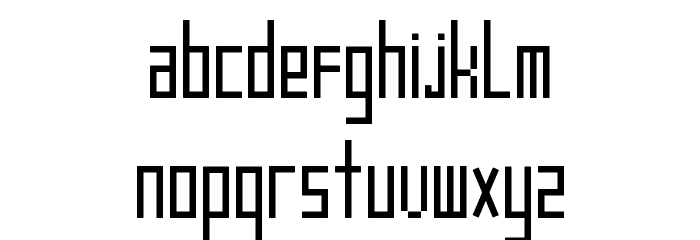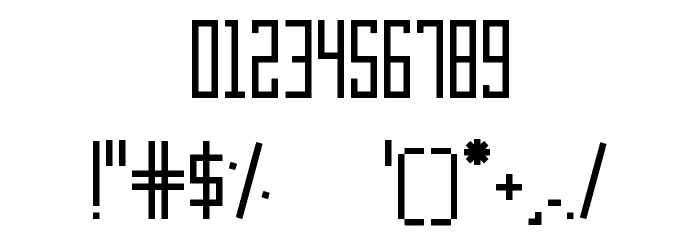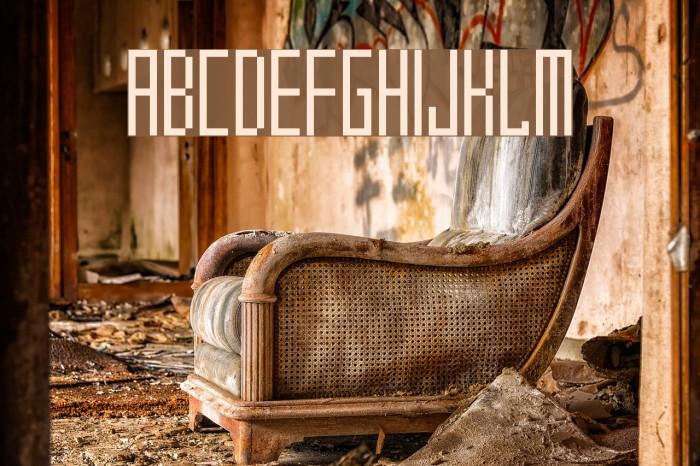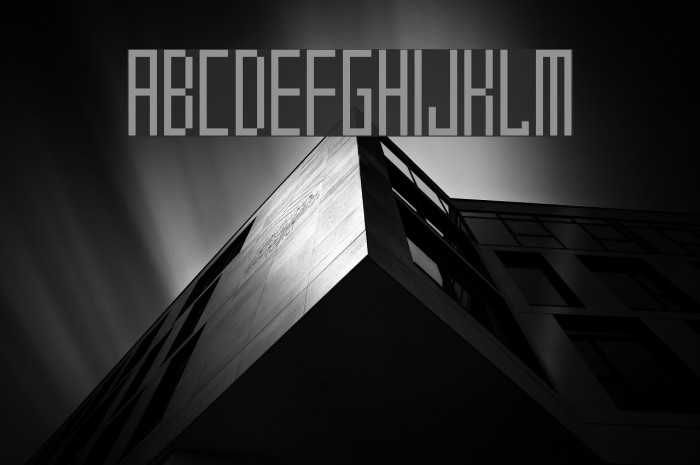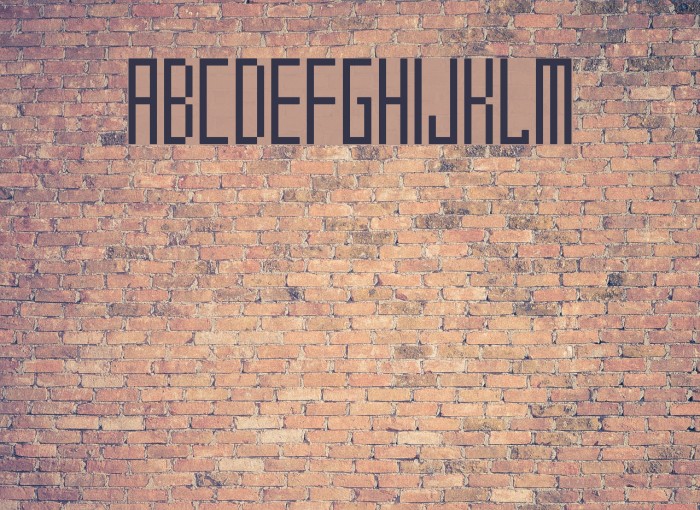
Frankstern Font
This font features a geometric and structured design, characterized by its tall, narrow letters and consistent line thickness. The uppercase letters are particularly striking, with a modern and futuristic appearance. The lowercase letters maintain the same geometric style, creating a cohesive look across the alphabet. Numbers and special characters are designed with the same attention to detail, ensuring readability and uniformity. The font's clean lines and sharp angles make it suitable for digital and print media, where a contemporary and tech-inspired aesthetic is desired.
A geometric, modern font with tall, narrow letters and consistent line thickness.
- Proposed Projects: Ideal for technology branding, digital interfaces, modern posters, and futuristic design projects.
- Use Case: Headlines, Logos, Digital interfaces